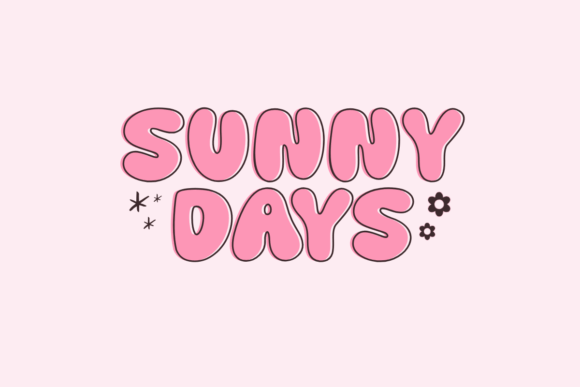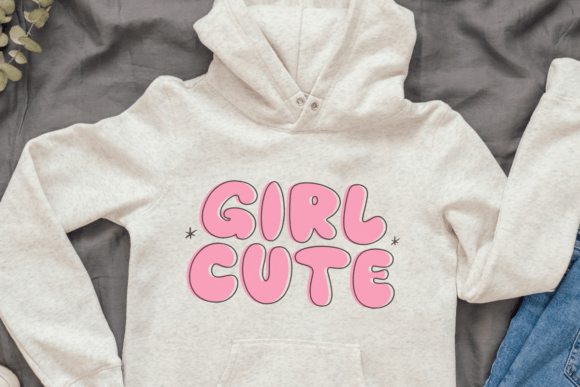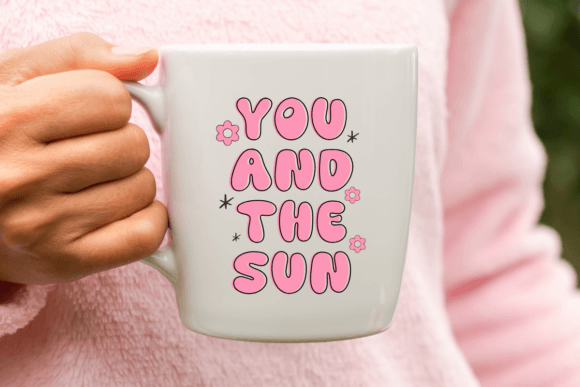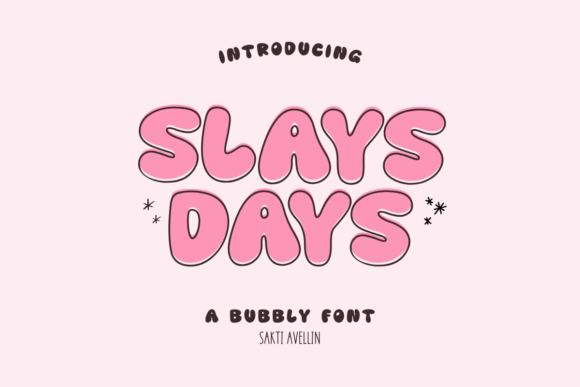
Introduction to Slays Days Font
Slays Days, a bubbling pot of retro-inspired charm that adds delightful personality to any creation.
This captivating bubble font holds a whimsical essence that can transform ordinary into extraordinary Imagine it enlivening your crafts, personifying your brand, or adding spirit to your t-shirts.